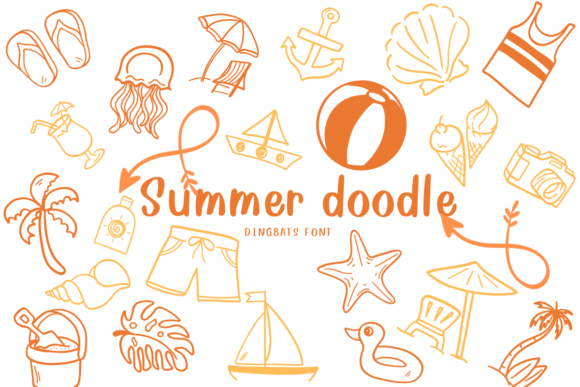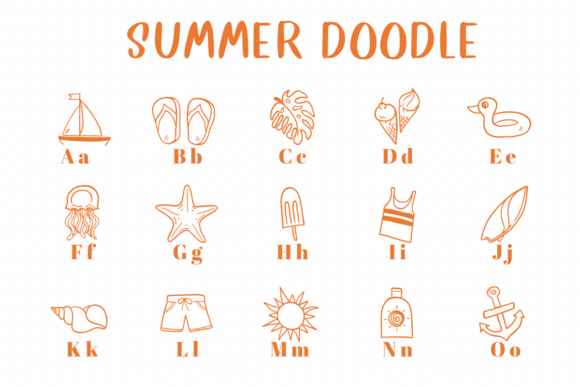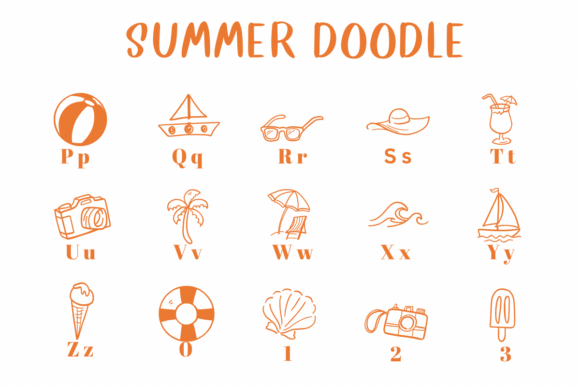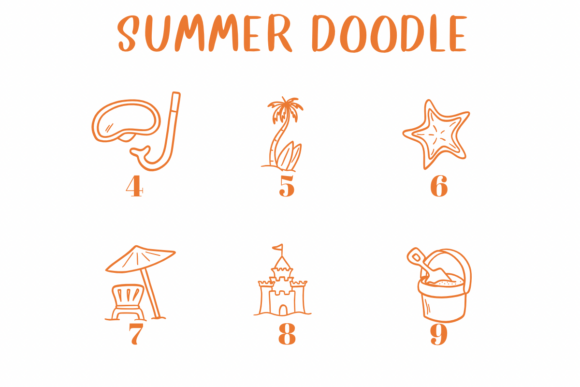
Summer Doodle Font
About the Summer Doodle Font
Discover the charm of Summer Doodle Font. This font is a perfect blend of modern aesthetics and classic appeal. Summer Doodle
is a cheerful dingbats font filled with hand-drawn summer-themed icons. From seashells and ice cream cones to palm trees, swimsuits, and beach umbrellas, this font delivers a full dose of vacation vibes. Ideal for crafting, party invites, scrapbooking, planner stickers, kids’ projects, or sunny branding materials, these vector-style doodles are fun, casual, and versatile.
Summer Doodle Font Usage Examples
Summer Doodle Font Example